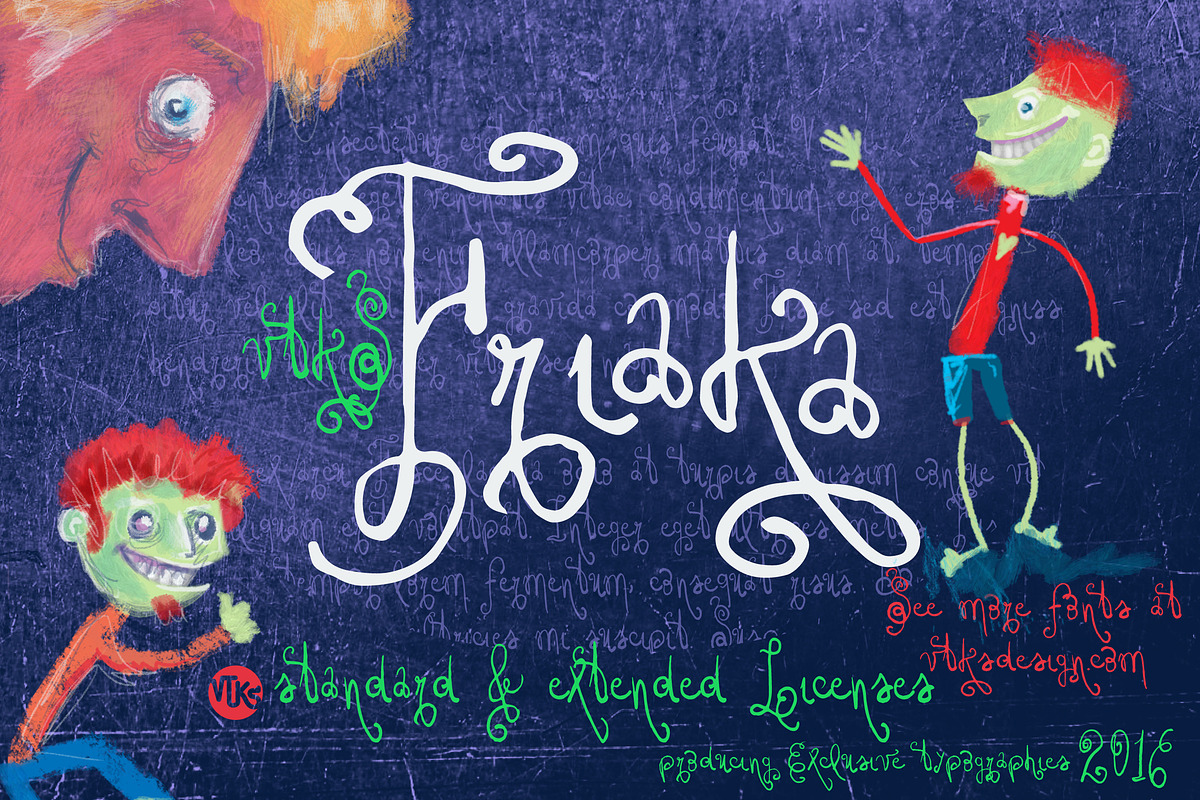
Friaka font
Friaka font by vtks design is a font selected for branding, posters, packaging, typography.
Why Friaka font is worth a look
Friaka font by vtks design fits naturally into Branding, posters, packaging, typography.